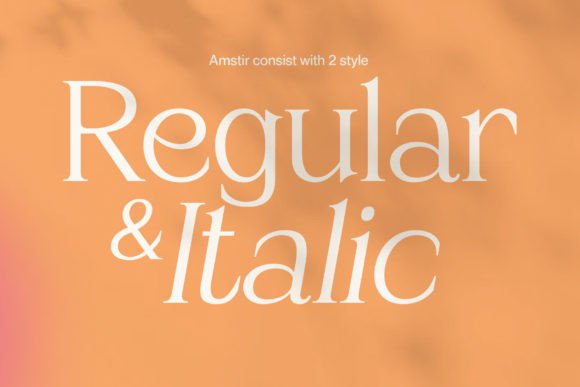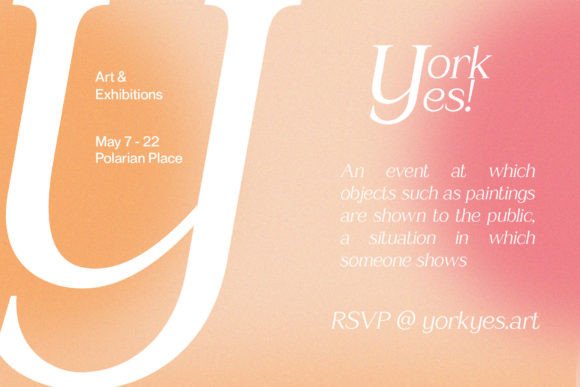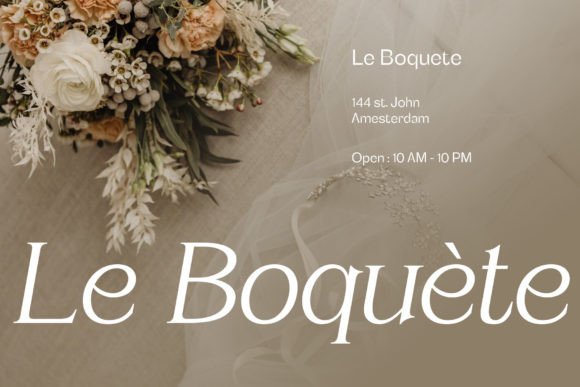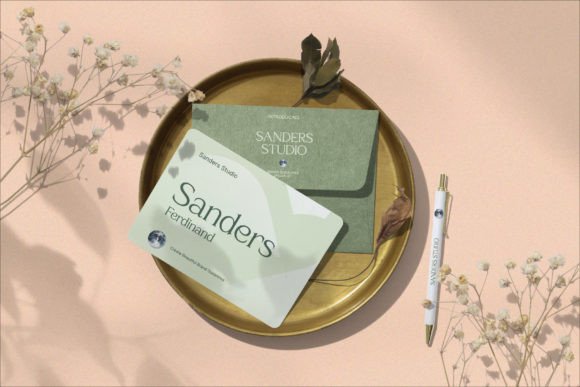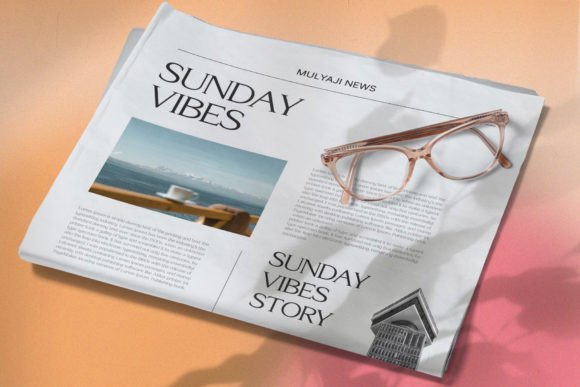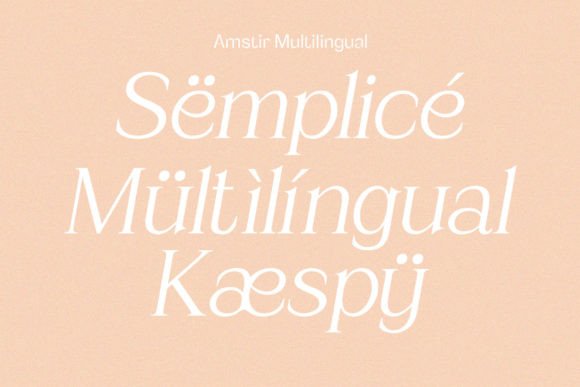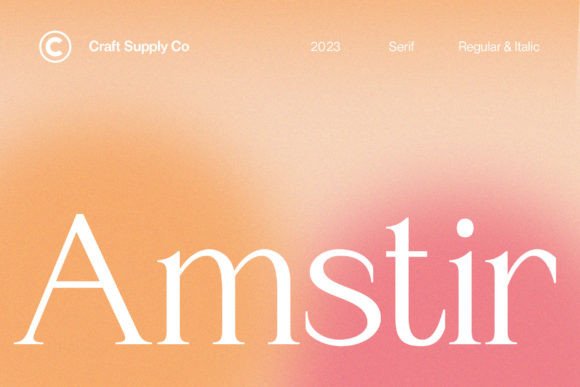
Discover the Timeless Elegance of Amstir Font: Elevate Your Editorial Projects
In the world of typography, some fonts stand out for their classic appeal and versatility. Amstir Font is one such timeless classic among serif typefaces, perfectly tailored for editorial use. With its elegant lines and refined presence, Amstir brings an air of sophistication to your content. Whether you’re working on a magazine, a book, or any other editorial project, Amstir is the perfect choice to elevate your design and add a touch of tradition.
The Characteristics of Amstir Font
Amstir Font boasts a range of characteristics that make it an ideal choice for editorial projects. Its serif design provides a sense of tradition and elegance, while its refined lines and classic proportions ensure that it remains highly legible, even in smaller sizes. The font’s subtle contrast between thick and thin strokes adds a layer of sophistication, making it perfect for high-end editorial content.
Versatility Beyond Editorial Use
While Amstir Font is perfectly suited for editorial projects, its versatility extends far beyond. This typeface is ideal for a wide range of design applications, including:
- Greeting Cards: Add a touch of elegance to your greeting cards with Amstir’s refined lines and classic proportions.
- Packaging: Elevate your packaging design with the sophistication and tradition of Amstir.
- Brand Identity: Establish a strong brand presence with Amstir’s distinctive design.
- Posters: Create eye-catching posters with Amstir’s elegant lines and refined presence.
Why Choose Amstir Font?
With so many fonts available, why choose Amstir? Here are just a few reasons why Amstir stands out:
- Timeless Appeal: Amstir’s classic design ensures that it will remain relevant for years to come.
- Elegance and Sophistication: Amstir brings an air of sophistication to your content, perfect for high-end editorial projects.
- Versatility: Amstir can be used for a wide range of design applications, from editorial projects to packaging and branding.
- Legibility: Amstir’s refined lines and classic proportions ensure that it remains highly legible, even in smaller sizes.
Tips for Using Amstir Font
To get the most out of Amstir Font, here are a few tips:
- Experiment with Font Sizes: Amstir looks great in a range of font sizes, from large headings to smaller body text.
- Play with Line Spacing: Adjusting the line spacing can help to create a sense of flow and rhythm in your text.
- Combine with Other Fonts: Amstir pairs well with a range of other fonts, so don’t be afraid to experiment with different combinations.
Amstir Font is a timeless classic among serif typefaces, perfectly tailored for editorial use. With its elegant lines and refined presence, Amstir brings an air of sophistication to your content. Whether you’re working on a magazine, a book, or any other editorial project, Amstir is the perfect choice to elevate your design and add a touch of tradition. So why not give Amstir a try and see the difference it can make in your design projects?
Get Creative with Amstir Font
With its versatility and timeless appeal, Amstir Font is the perfect choice for designers and crafters looking to add a touch of elegance and sophistication to their projects. So feel free to play with this typeface and see what amazing designs you can create!